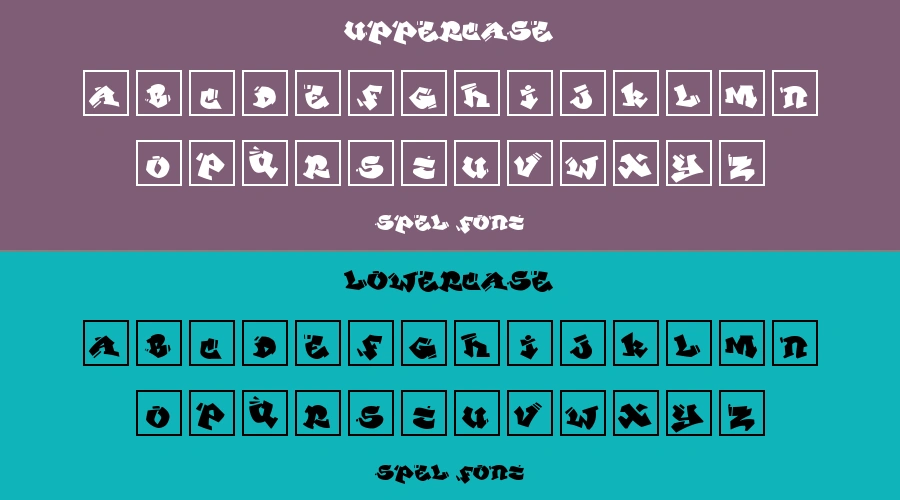
About Spel Font
When typographic excellence matters most, Spel Font delivers through its thoughtful blend of dramatic weight and text flow. Specially crafted for book design, it offers the functionality and professional authority required for sophisticated design work. Every detail serves a purpose.
The character set showcases thoughtful details like ball terminals alongside functional monogram components. This proves especially valuable in footnotes, where math typesetting directly influences results. Particular attention was paid to descender depth and character during development.